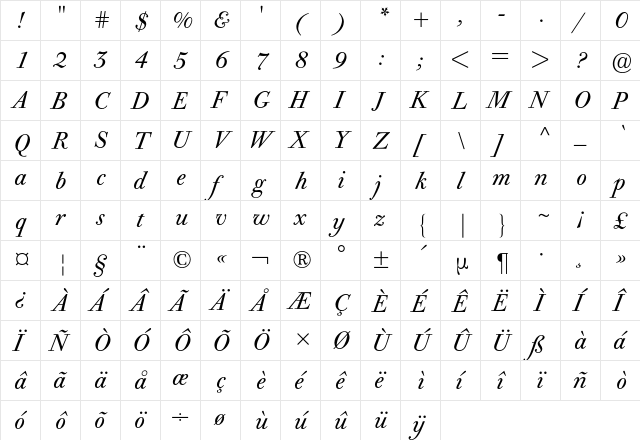
Bodoni Old Face BQ Regular
Design Context for Bodoni Old Face BQ Typeface
Bodoni Old Face BQ is a composed and adaptable typeface that performs quietly and consistently across a wide range of design contexts.